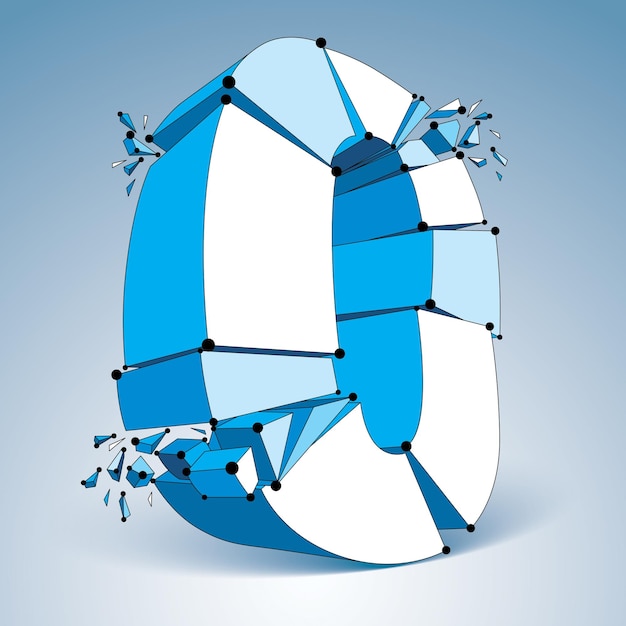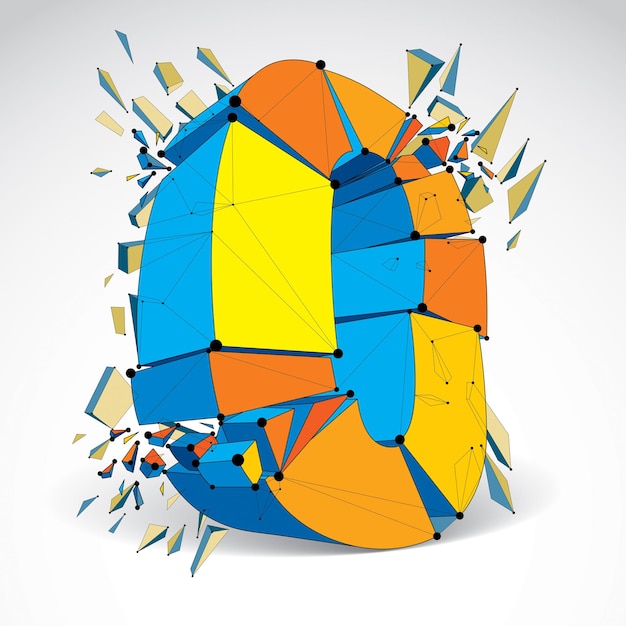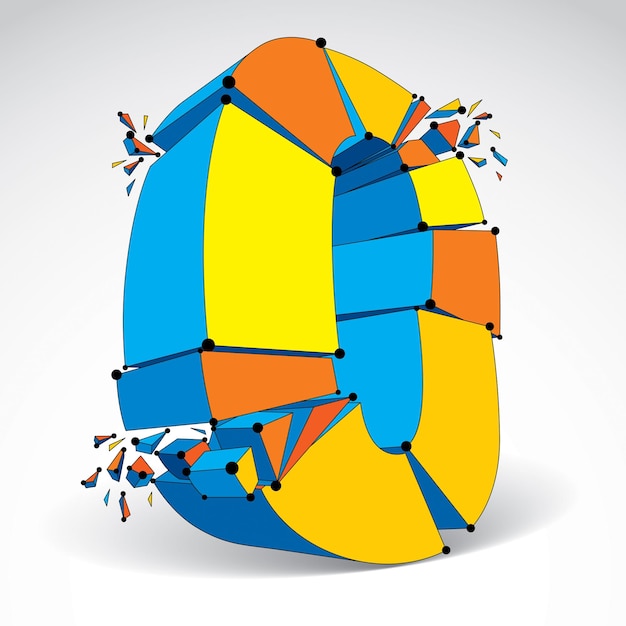
3d vector low poly zero number with black connected lines and dots, geometric wireframe font with broken fragments. Perspective shattered digit with thread.